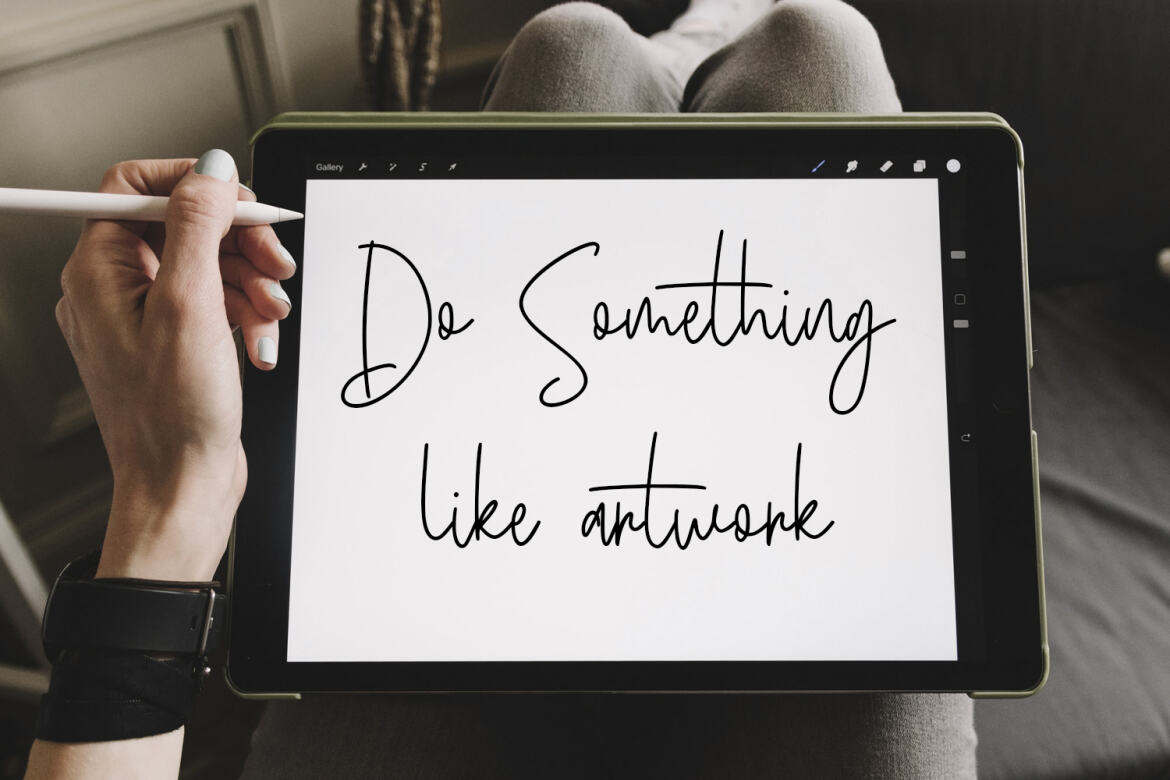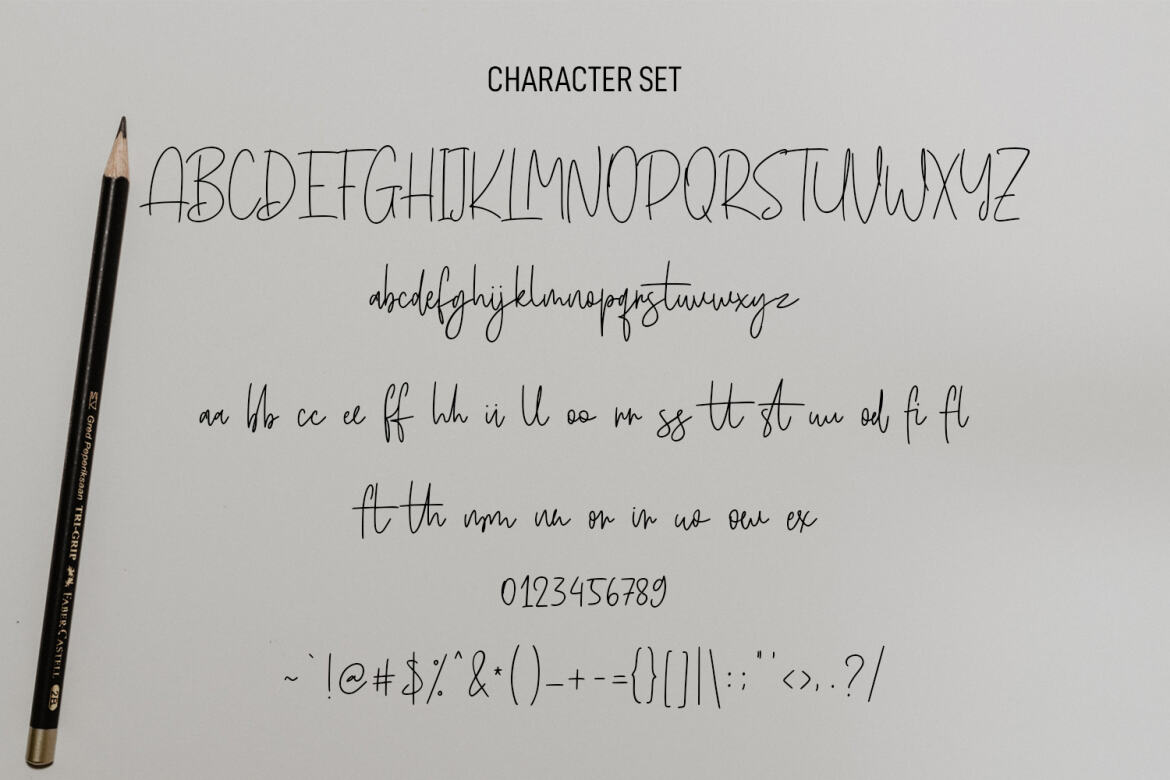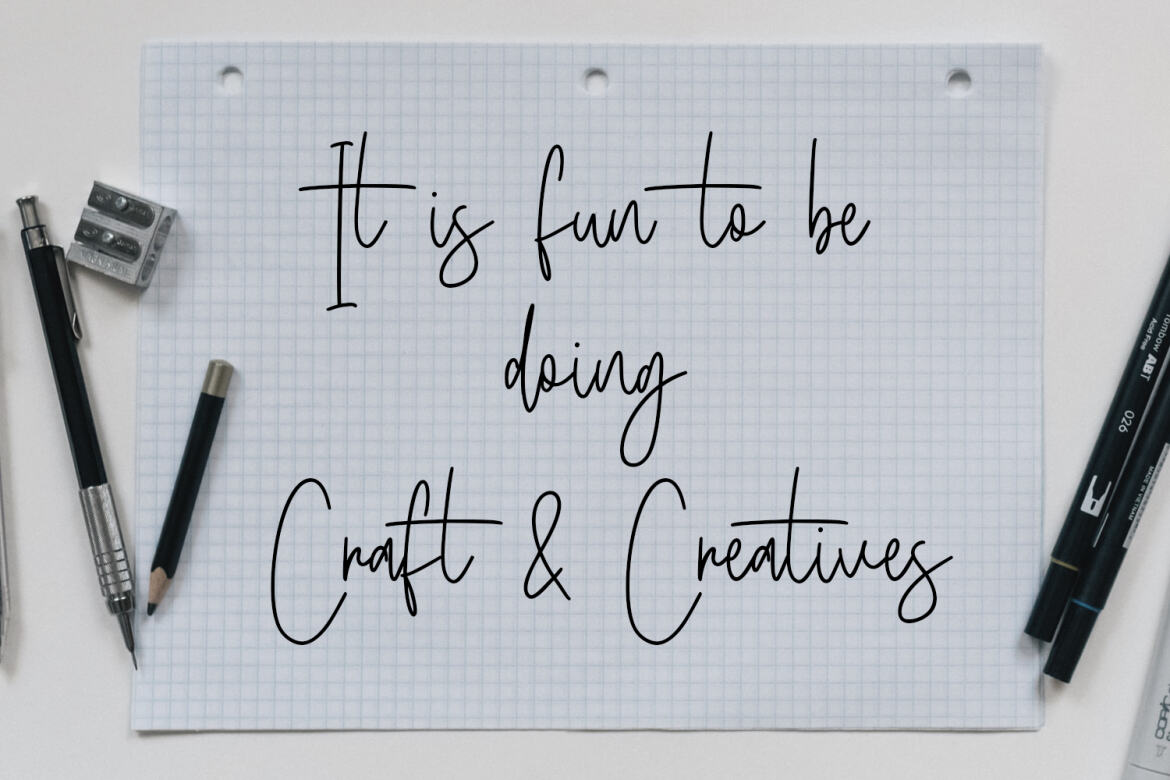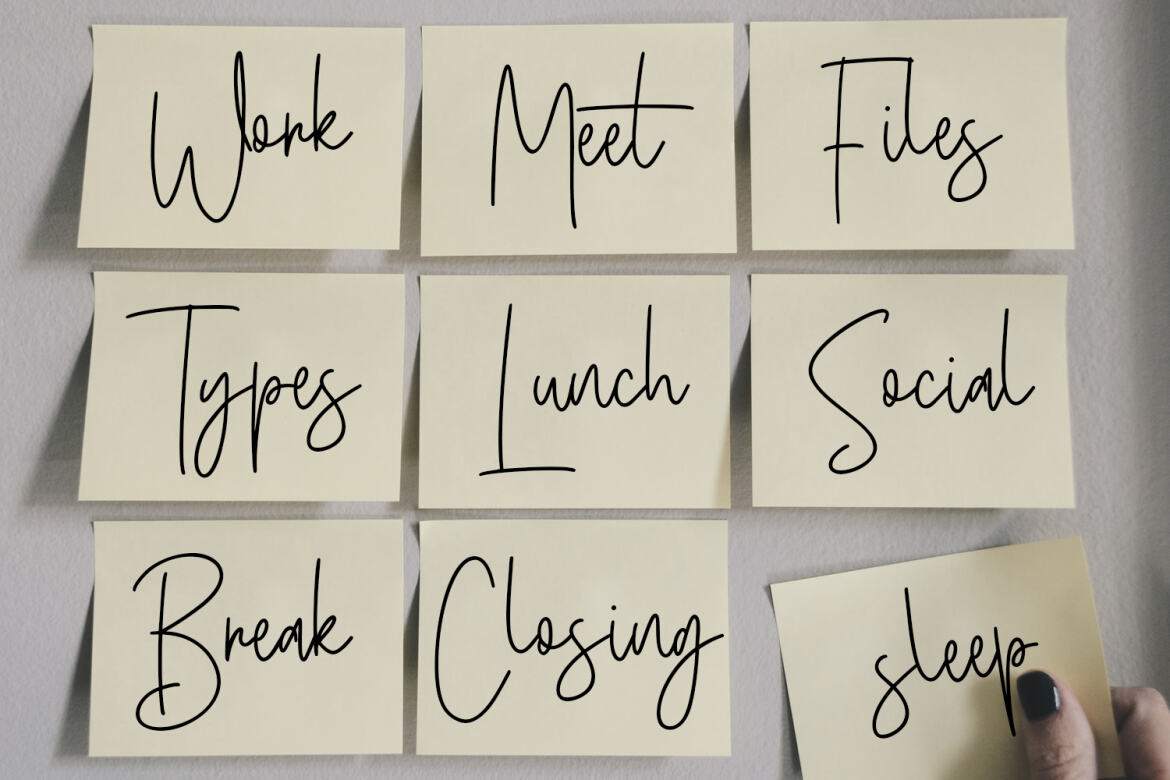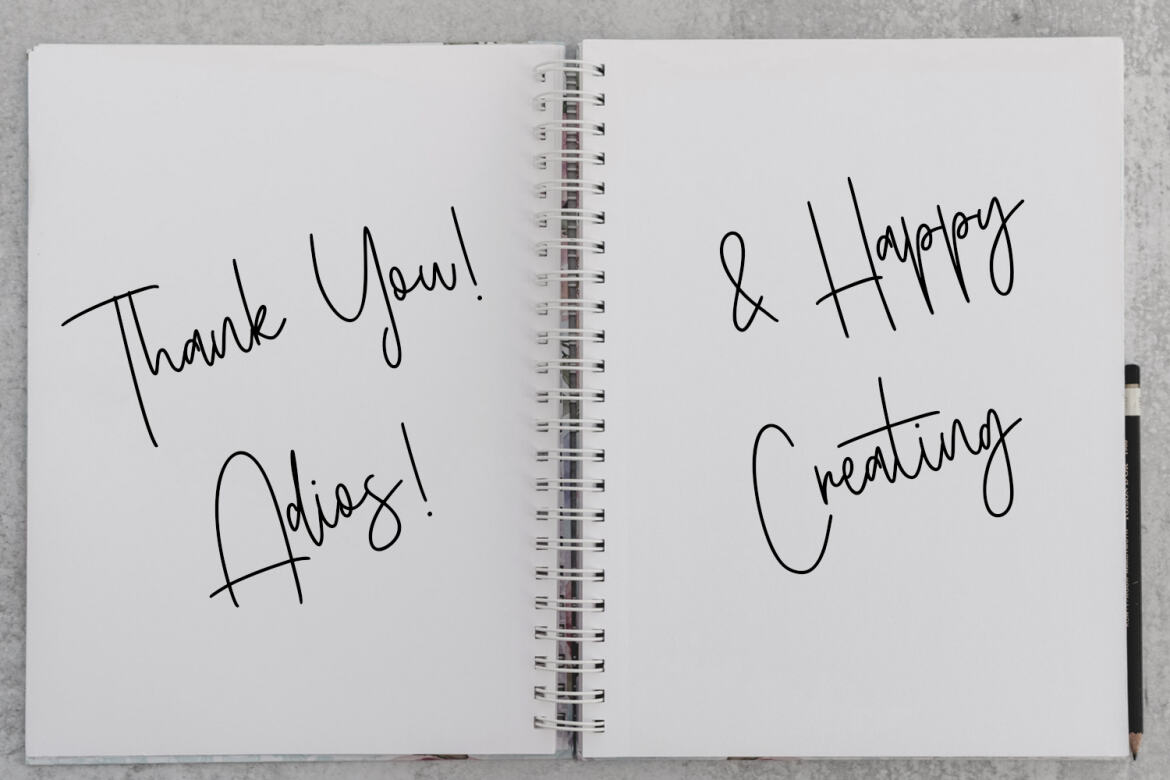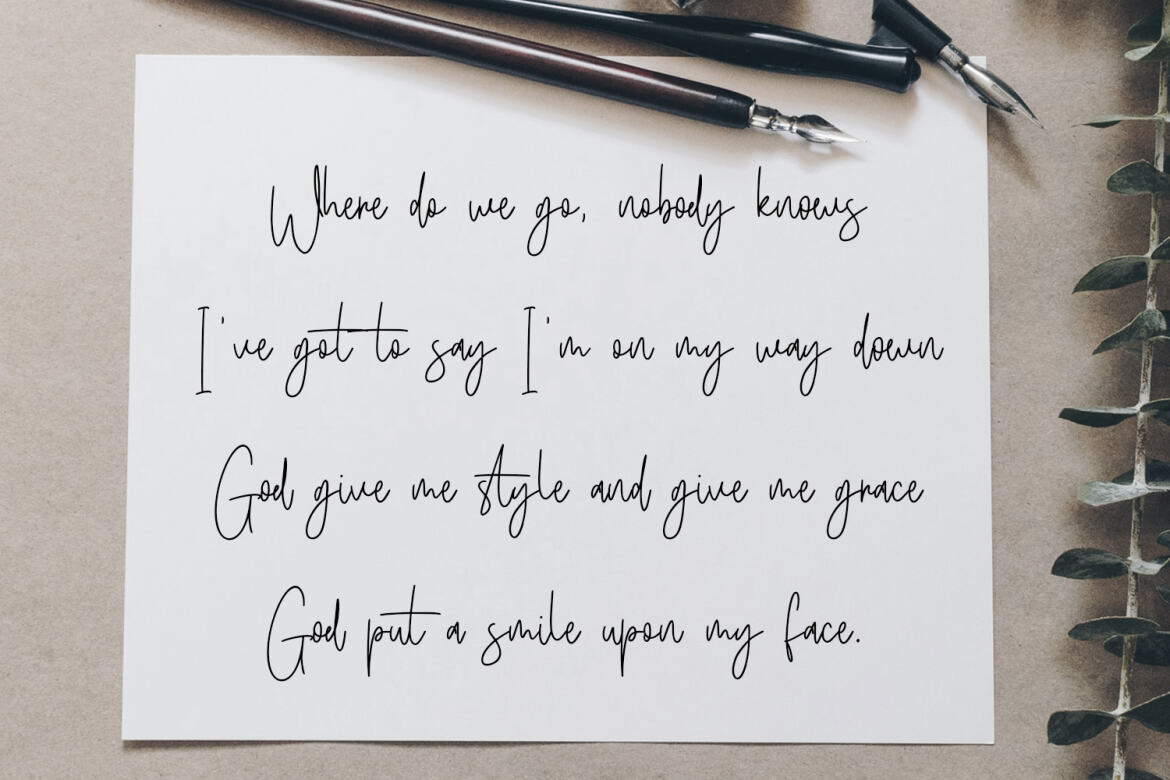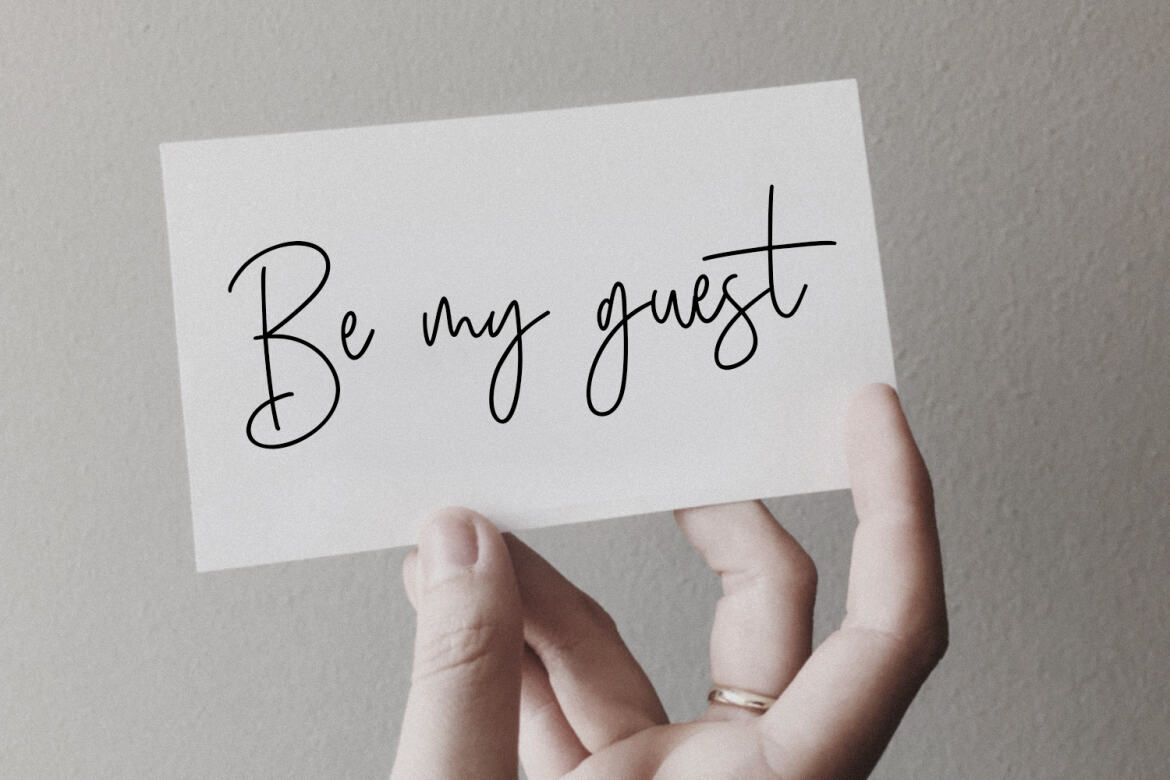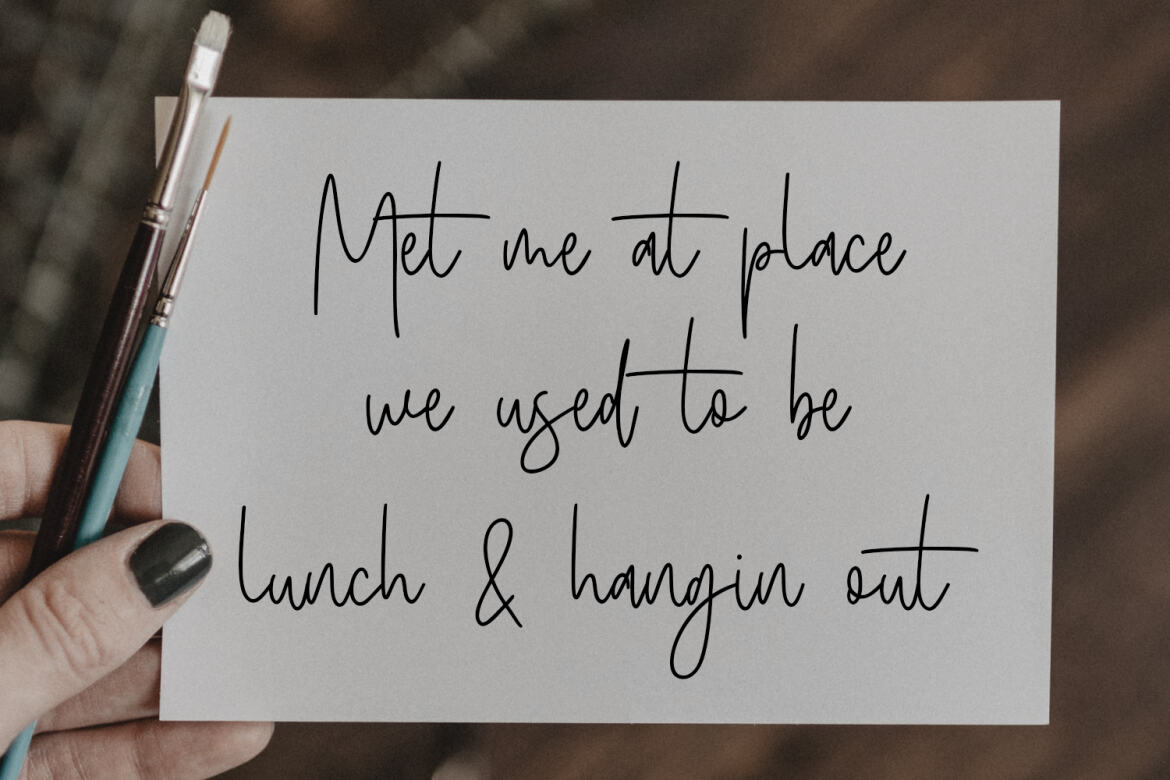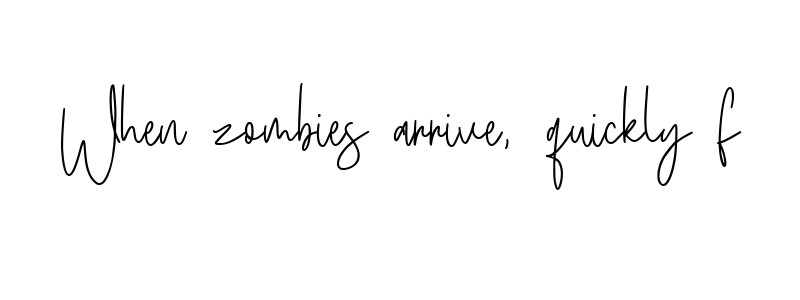
Basicschrift
Basicschrift is a simply basic script font. With a simple form and light stroke, condensed and fun character with a bit of ligatures. To give you an extra creative work. Basicschrift font support multilingual more than 100+ language. This font is good for logo design, Social media, Movie Titles, Books Titles, a short text even a long text letter and good for your secondary text font with sans or serif. Make a stunning work with Basicschrift font.